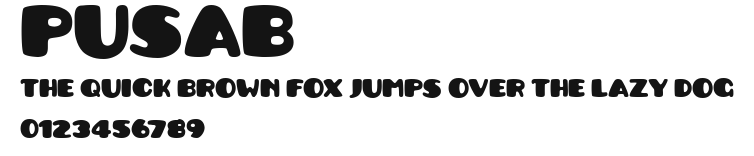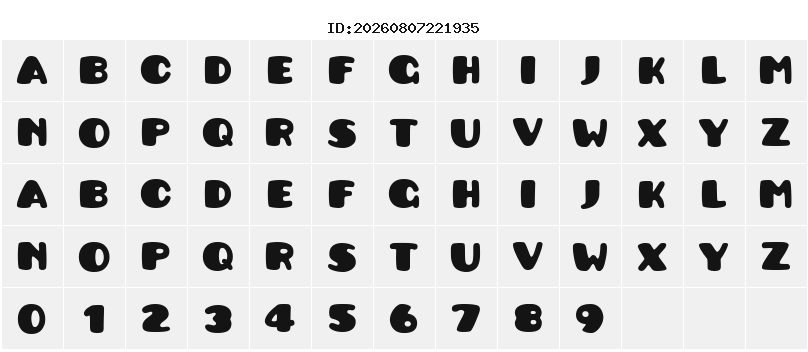
• Font Name: Pusab
• Full Font Name: Pusab
• PostScript Name: Pusab
About Pusab.ttf
Pusab.ttf is a modern, elegant sans-serif font designed for ultimate readability and visual harmony. Perfect for branding, headlines, web design, and print materials.